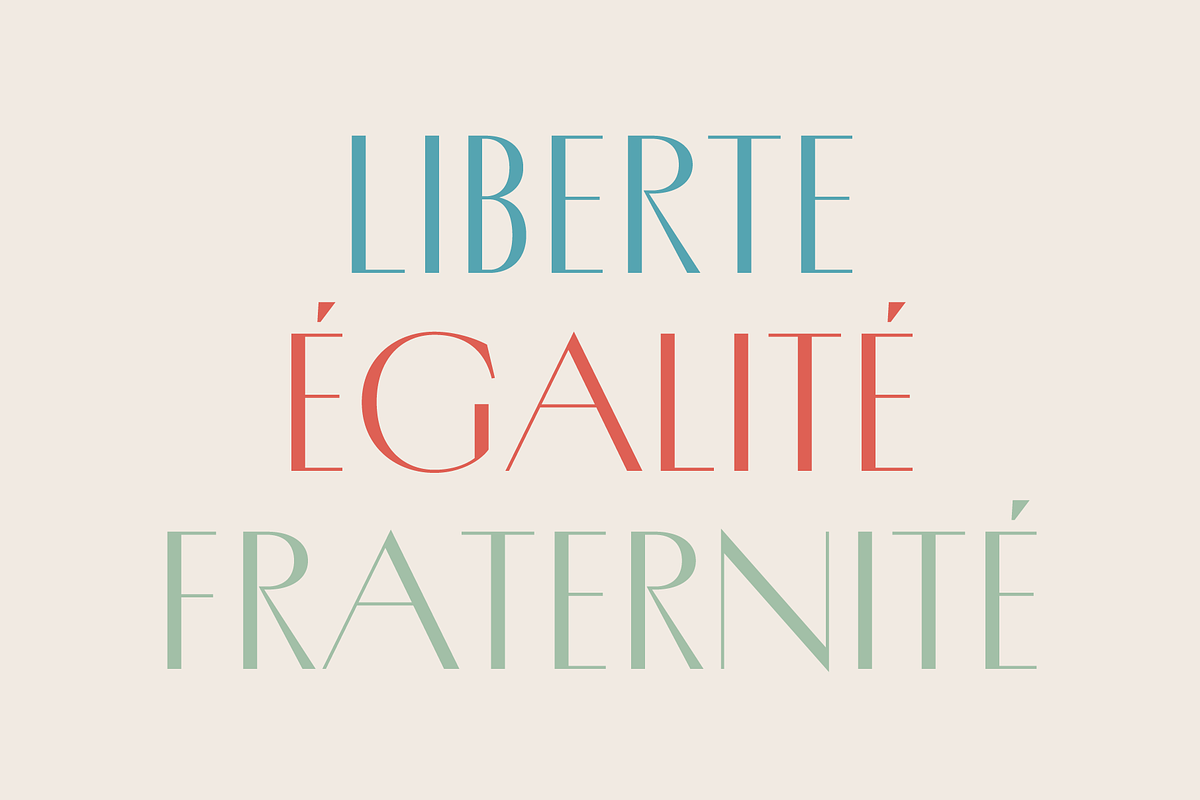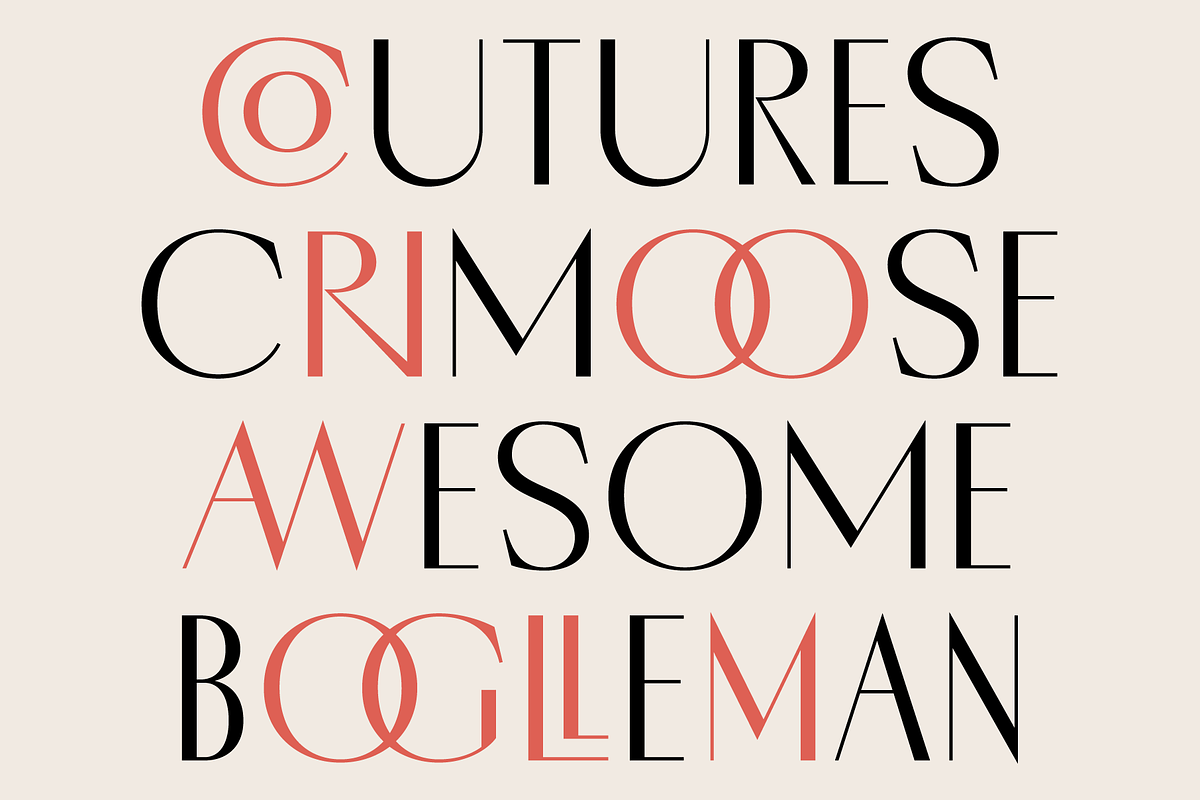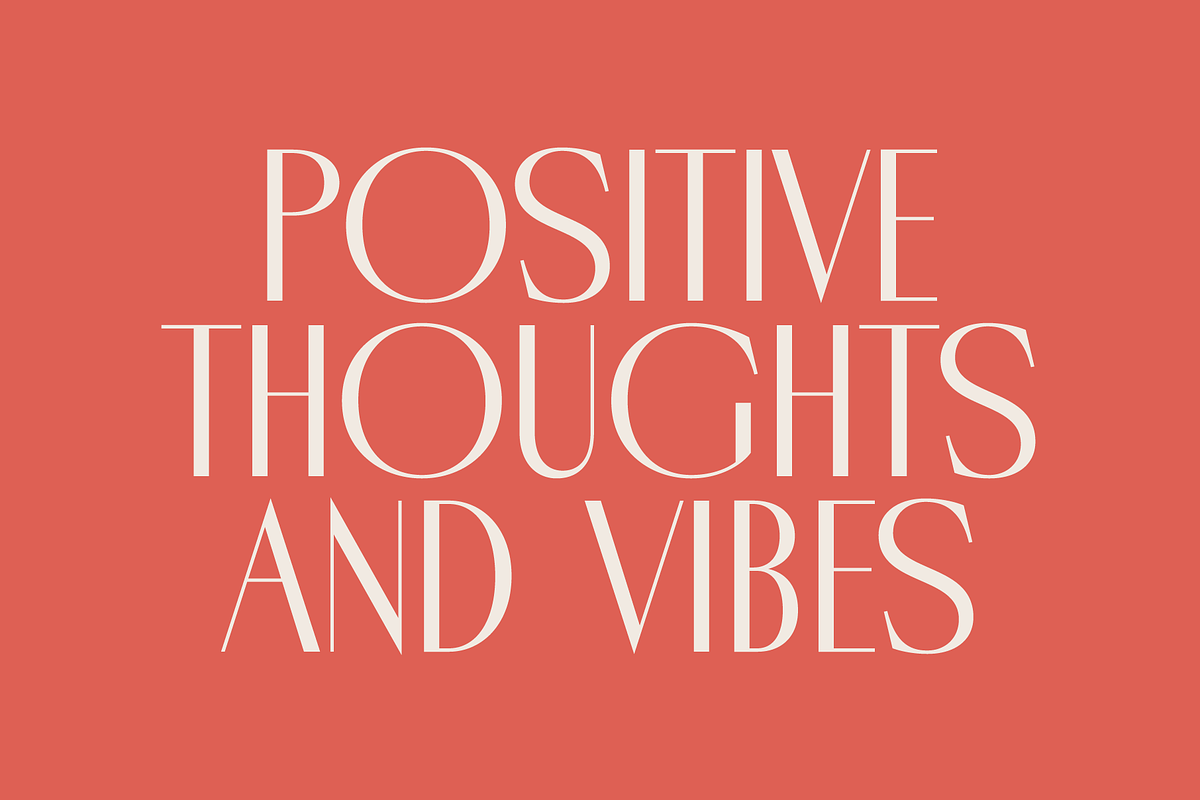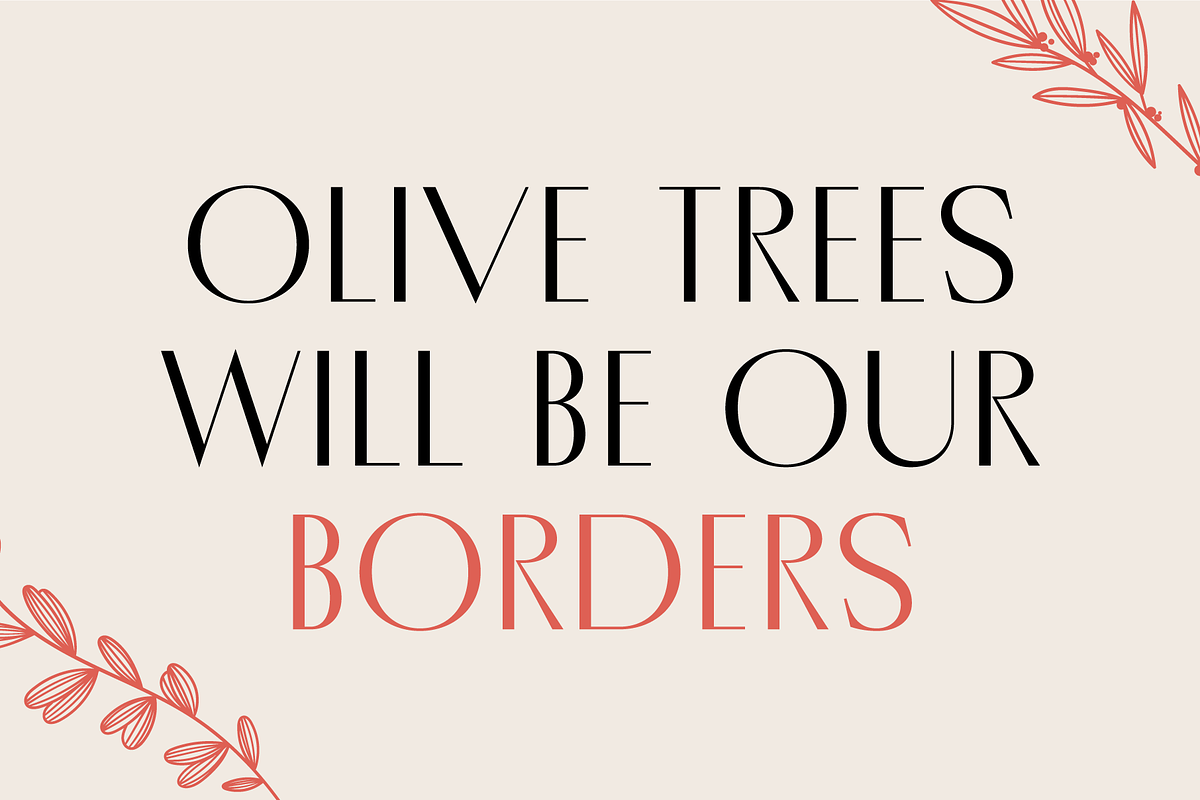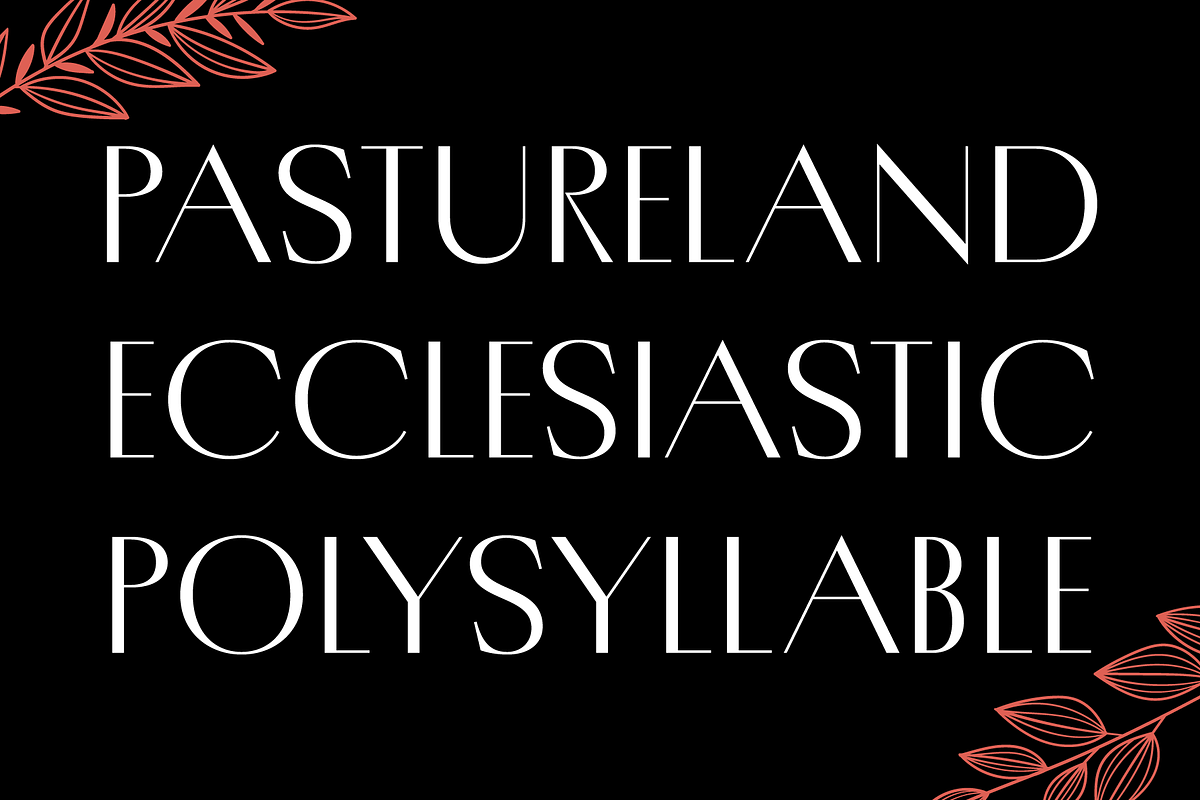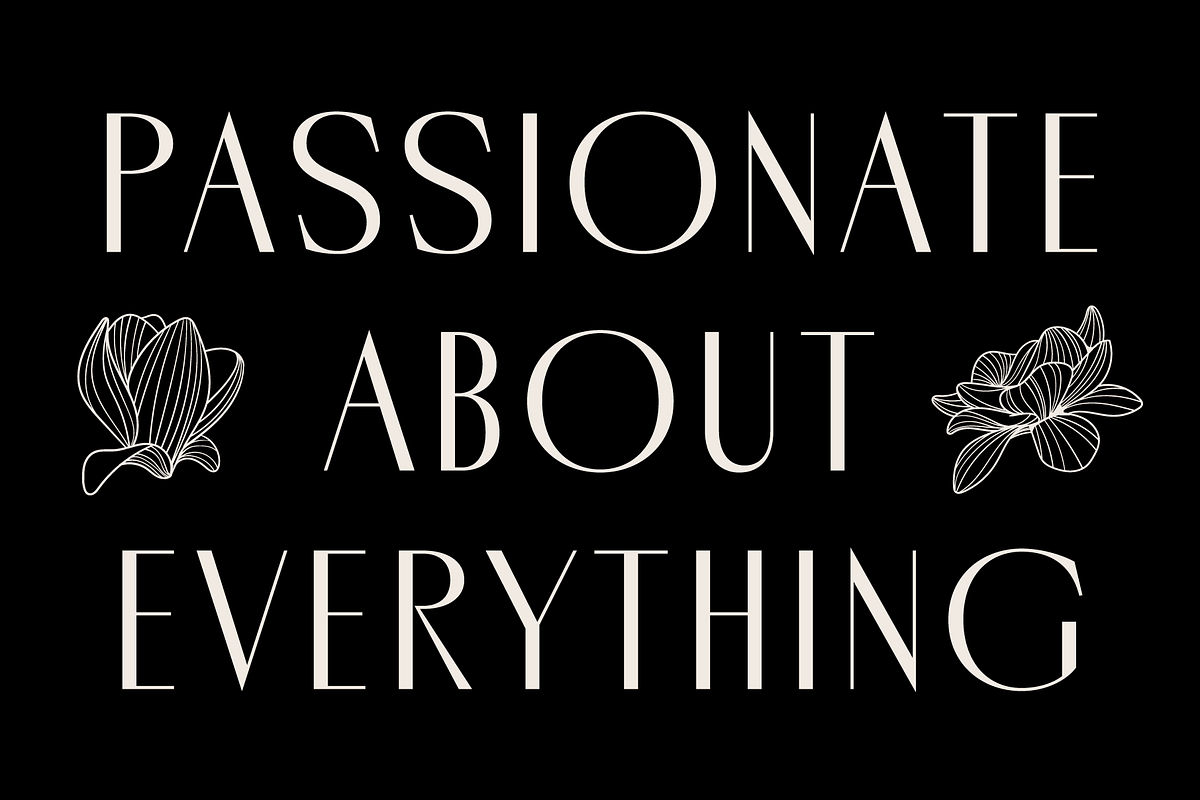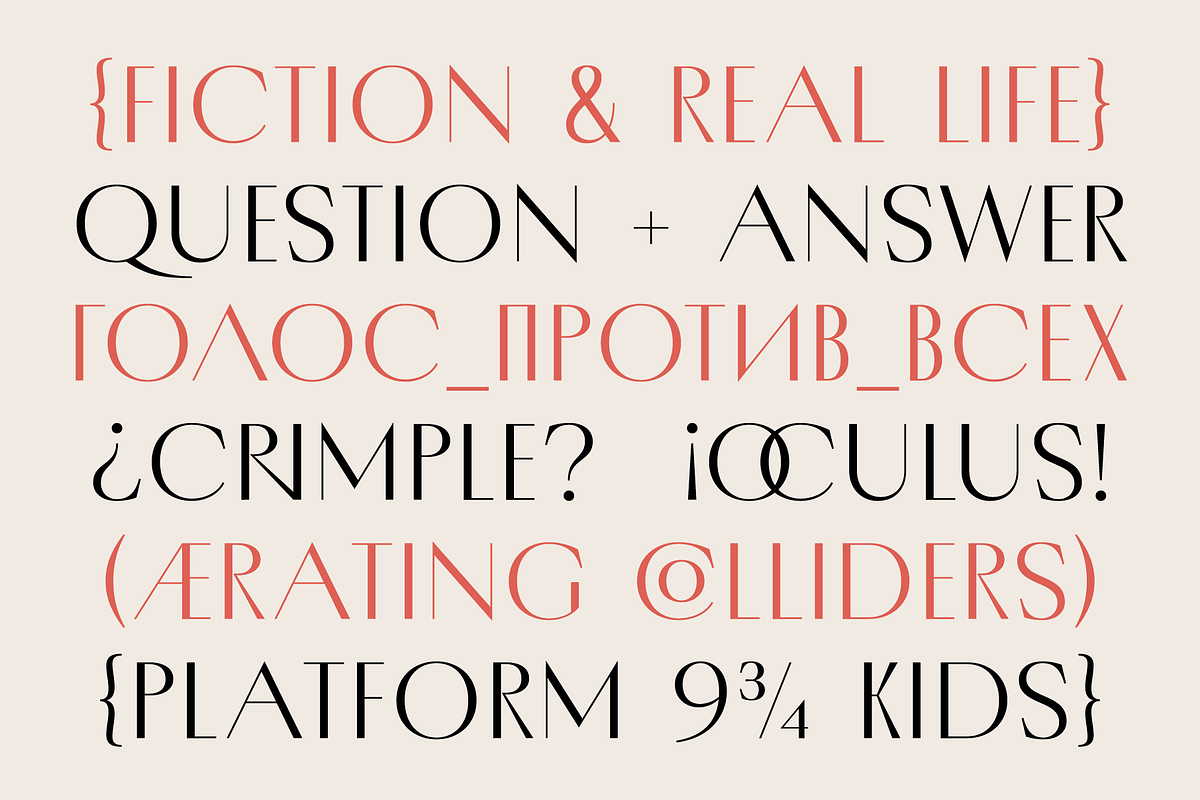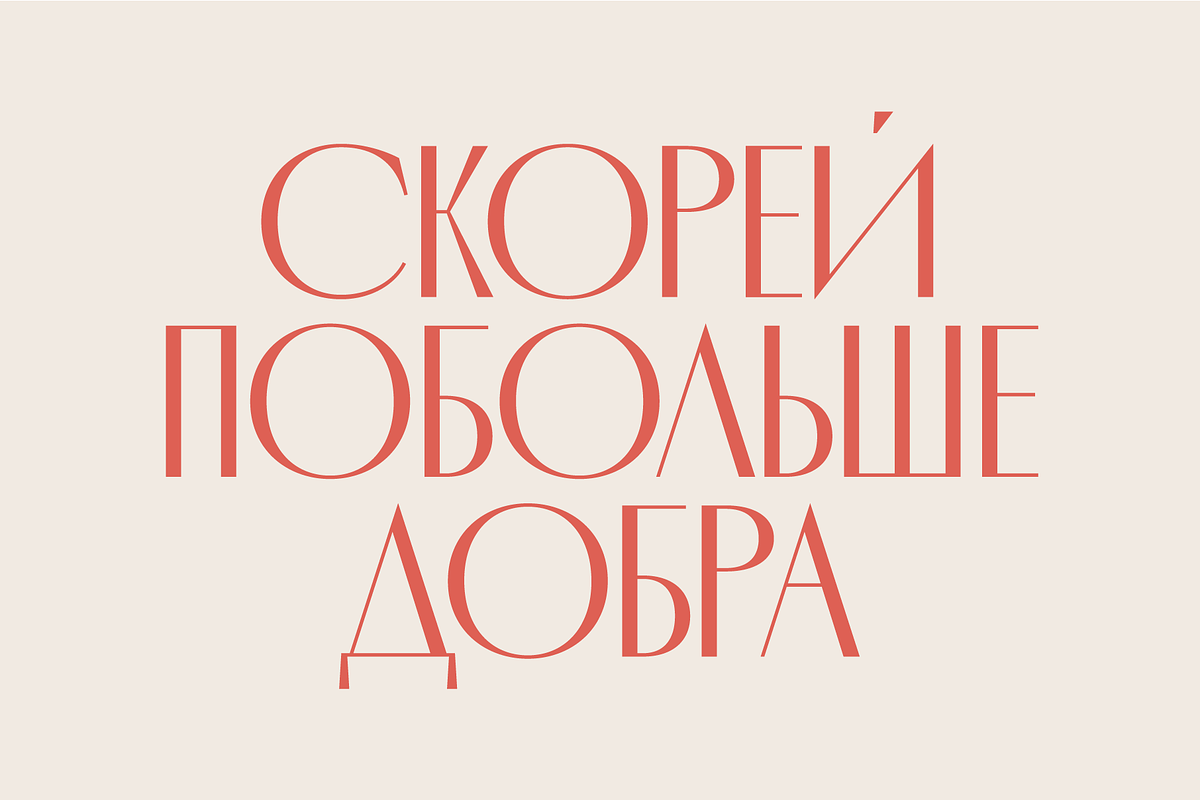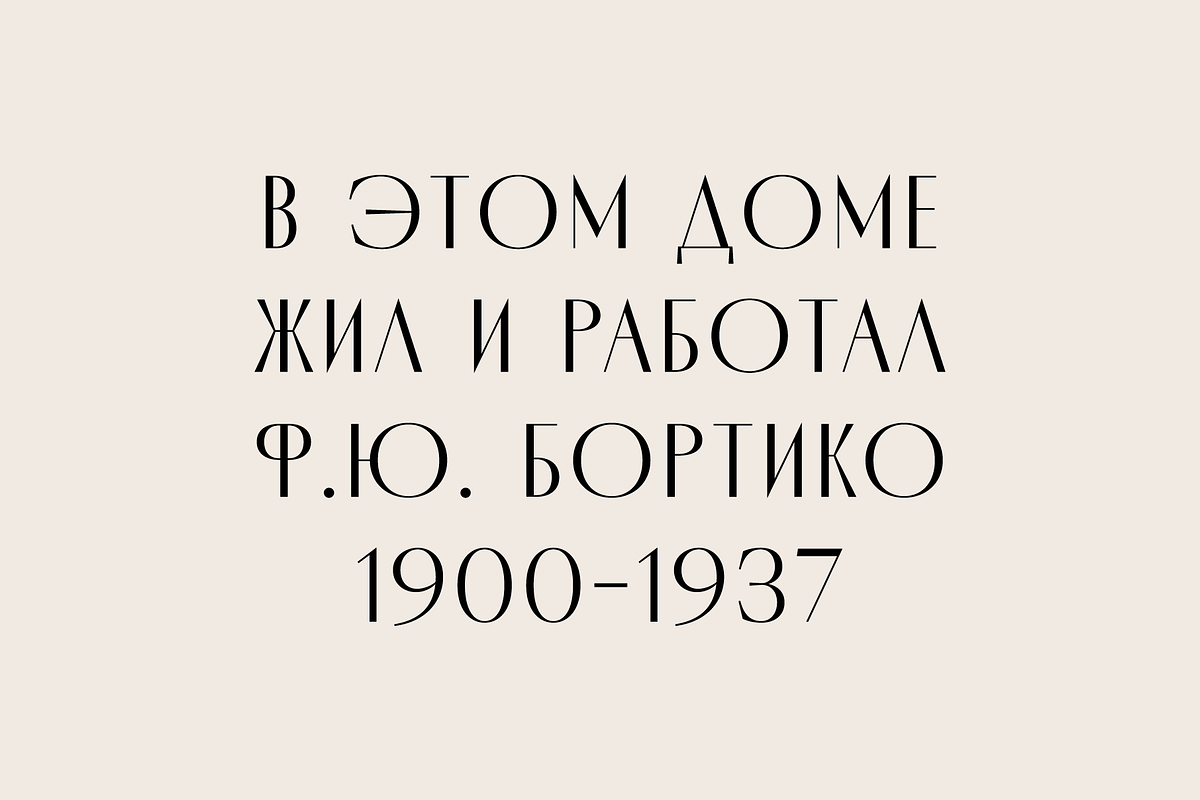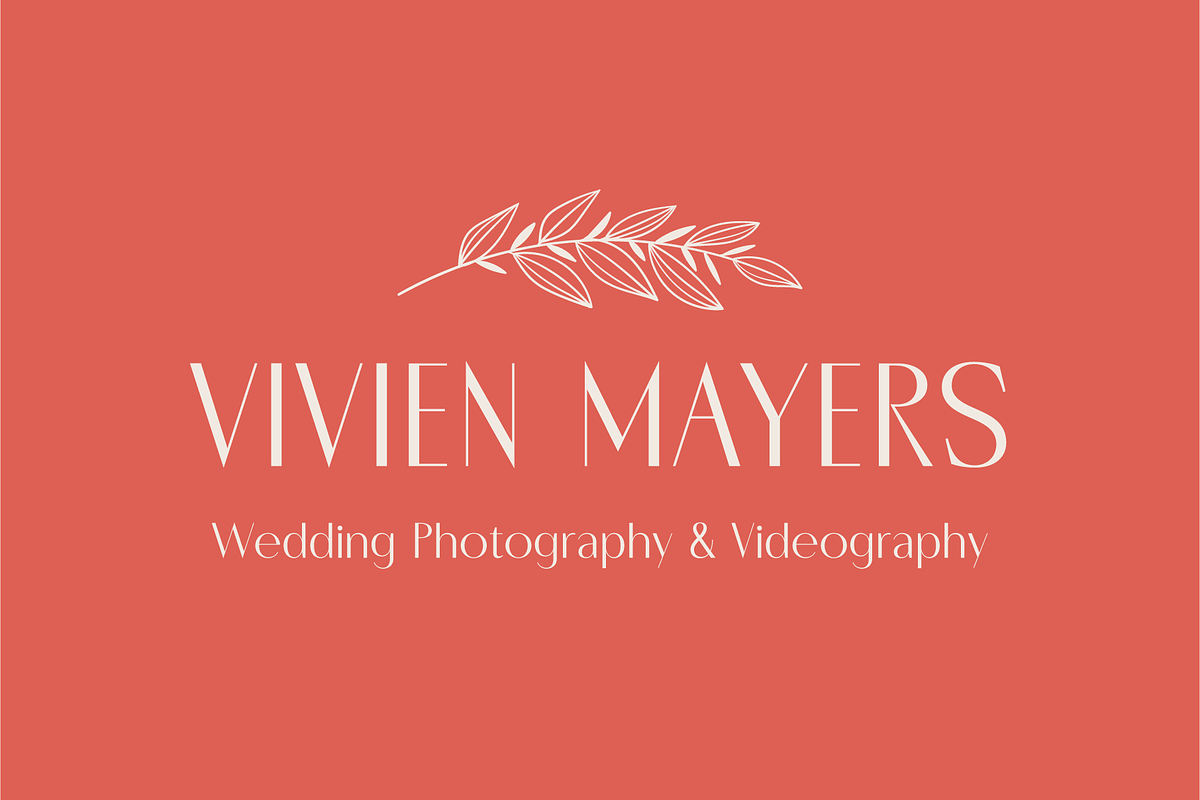
Porte — Elegant Display Font
Porte — Elegant Display Font:
- Unique Modernist Look
- 590+ characters per font
- Standard & Discretionary Ligatures
- Multiple Stylistic Sets
- Old Style Figures
- Case-Sensitive Punctuation
- Cyrillic Included
- Uppercase + Lowercase
Porte is an elegant sans serif font inspired by stone carving and modernist typefaces of early 20th century. While at its core Porte is a display font, it can also be used for larger bodies of text and in a variety of projects. Thanks to its unique proportions and feel Porte is reminiscent of early 20th century type, wherein aesthetic qualities often overweighed matters of practicality and applicability. Porte is at once delicate and sturdy, subtle and unyielding.
Porte is very OpenType friendly, boasting an awesome selection of useful OpenType features, precise and exhaustive kerning (around 1000 pairs) and lots of discretionary ligatures to make your designs look amazing. A selection of wider and narrower alternate glyphs allow the designer to modify the rhythm of the typeface, extending its application and impact. With 590+ characters on board, Porte supports all major Latin based languages as well as a number of Cyrillic languages.